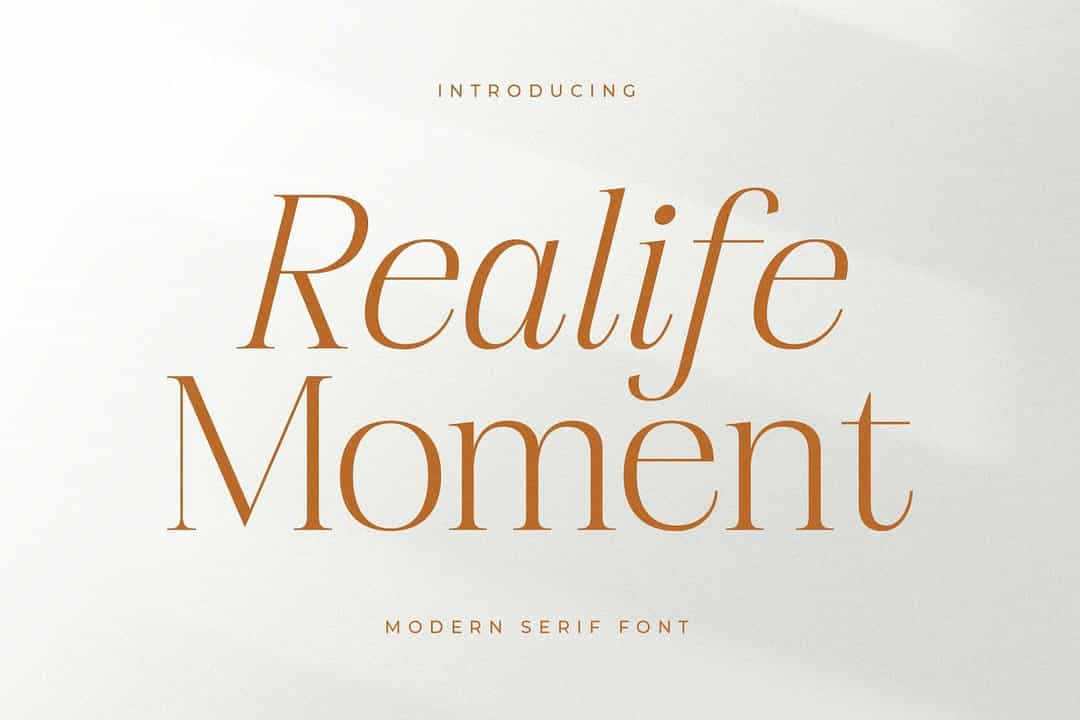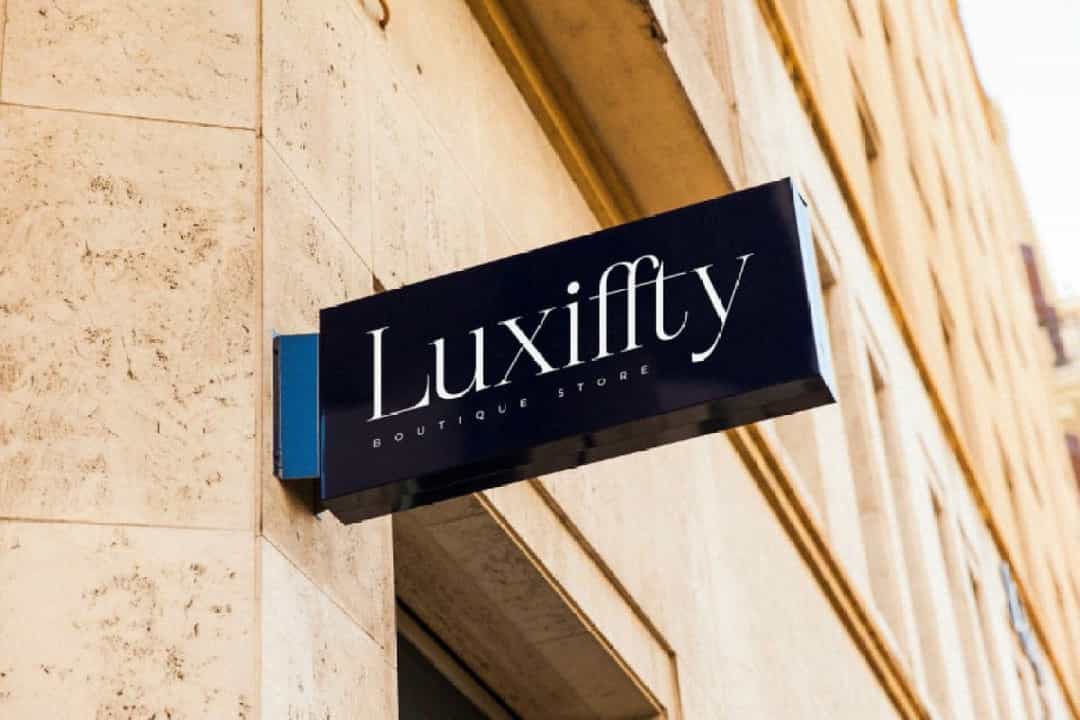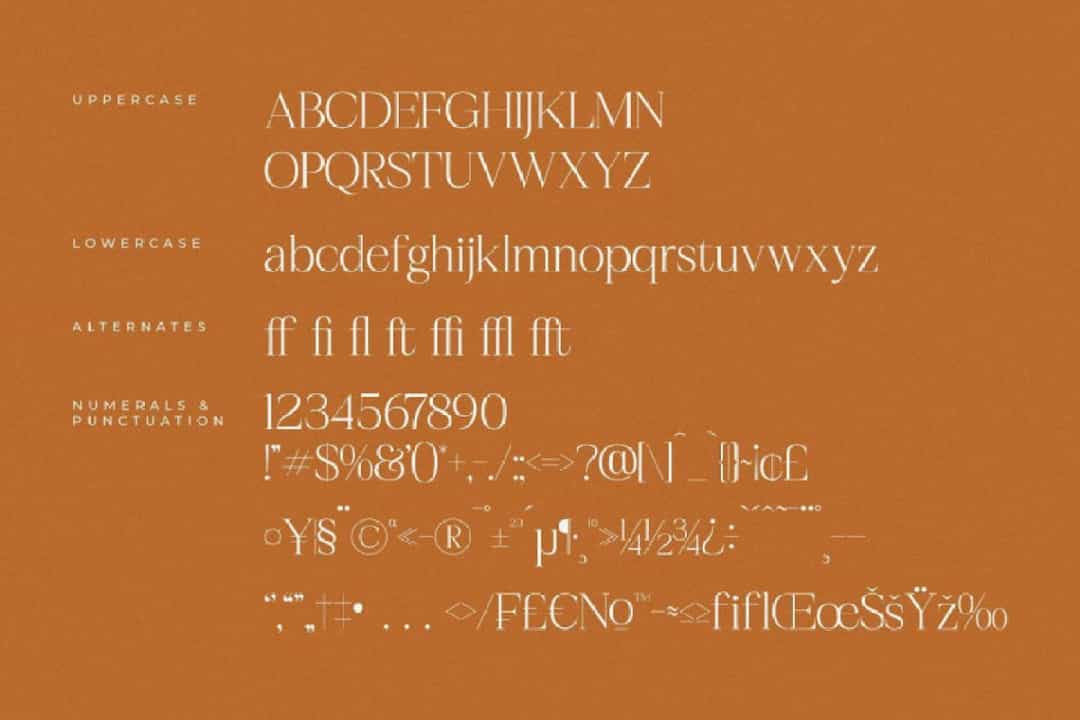
Discover Realife Moment Font, part of the Serif collection—a versatile and unique font perfect for adding a personal touch to your projects. Download it for free and enjoy crafting designs with style, from invitations to social media posts. This font is available exclusively for personal use, giving you the freedom to create without limits. Unlock your creativity with Realife Moment Font today!
Realife moment modern serif font from Letterena is suitable for almost every project, including logos, branding design, homeware packaging (mugs) product packaging posters quotes bags t-shirts shopping bags book covers greeting cards invitation cards labels watermarks photography special events photography other projects that require luxury serif style font.